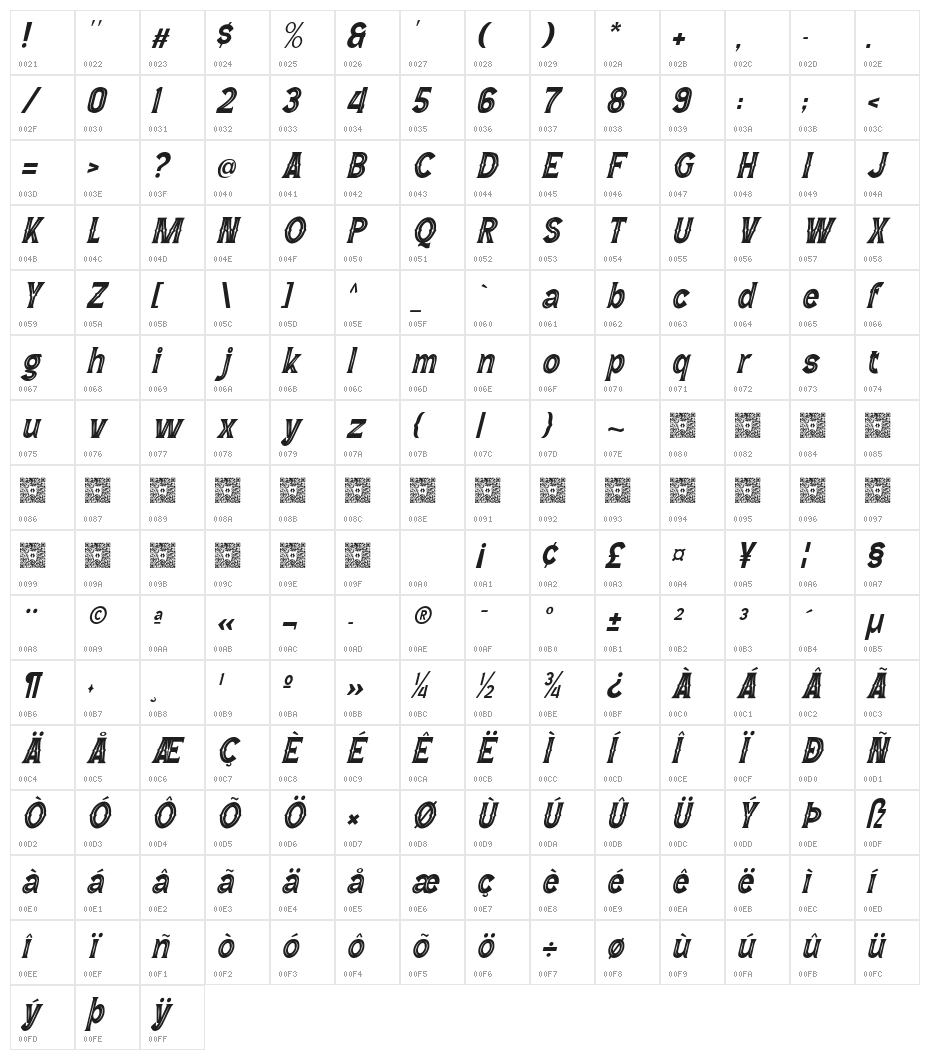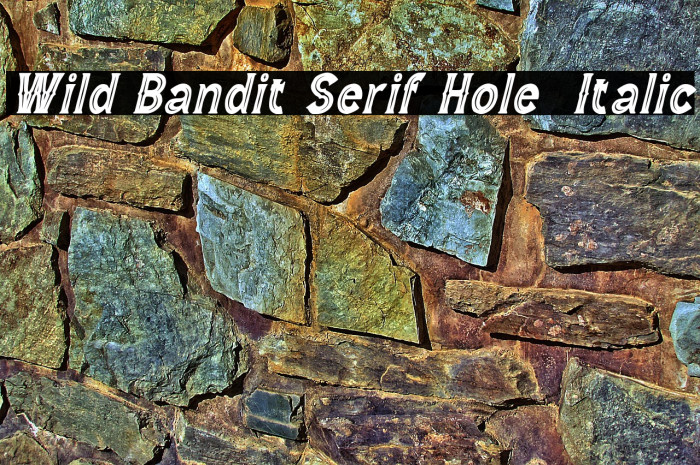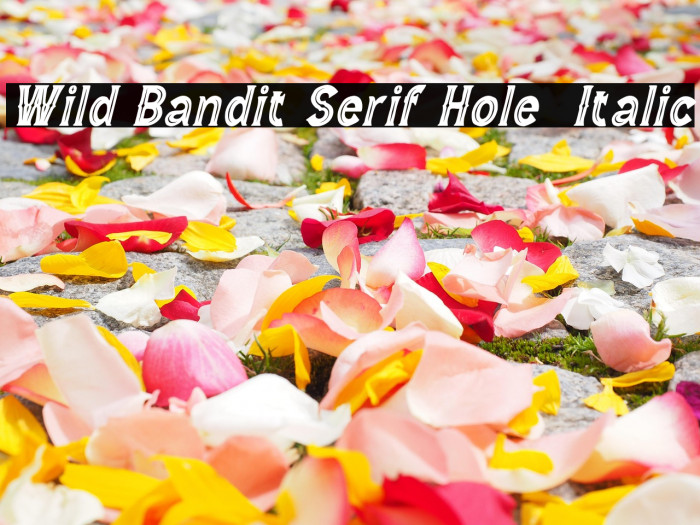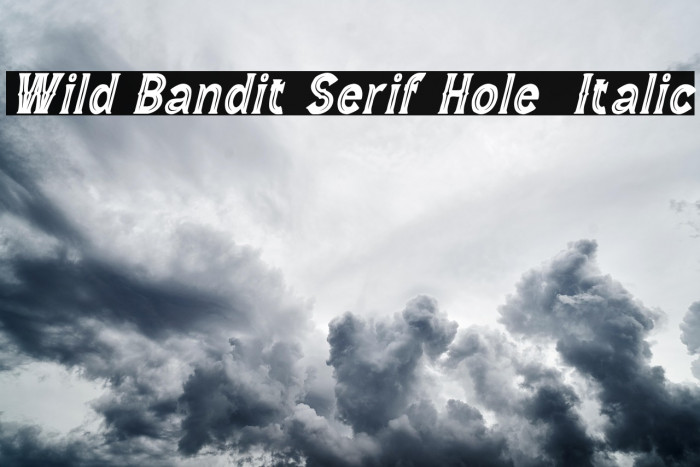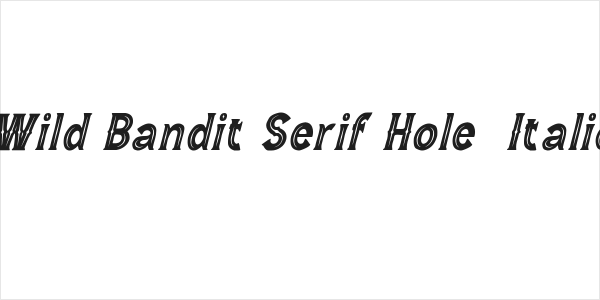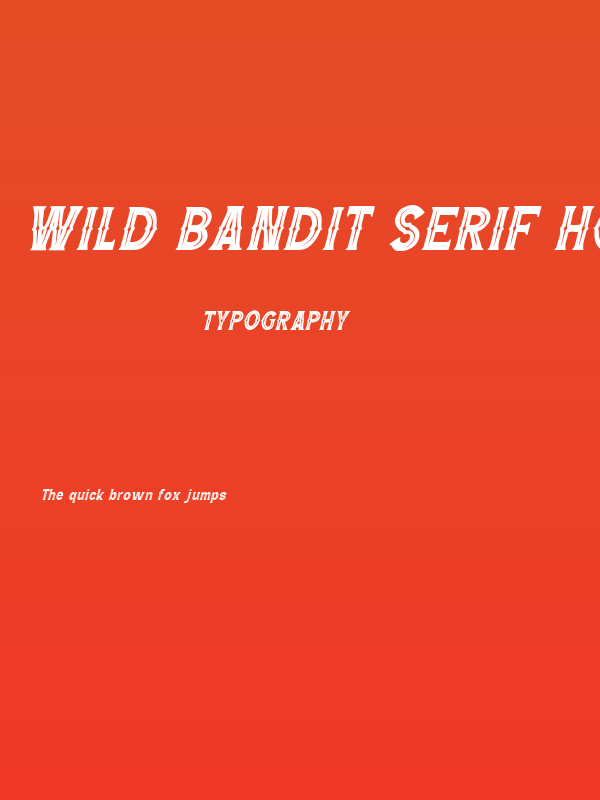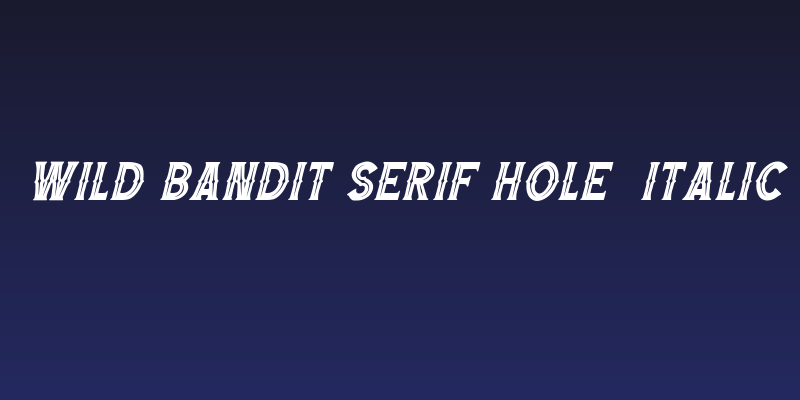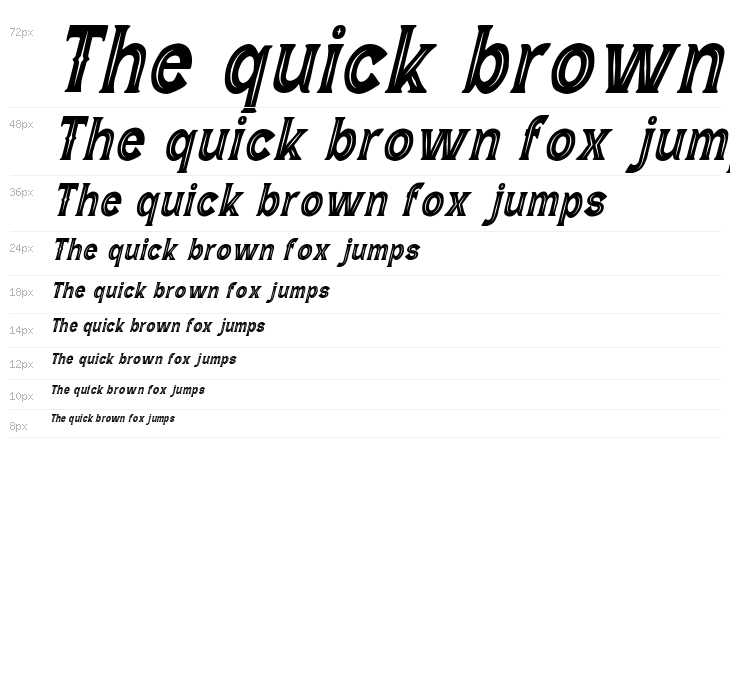
Wild Bandit Serif Hole Italic Font
Wild Bandit Serif Hole Italic Description
This font features a bold and dynamic serif style with a distinct italic slant, giving it a sense of movement and energy. The characters are designed with a unique 'hole' effect, where parts of the strokes are missing, creating a rugged and adventurous look. This design choice adds a layer of complexity and intrigue, making it stand out in any application. The uppercase and lowercase letters maintain a consistent style, with the numbers and special characters following suit. The overall appearance is both bold and playful, making it suitable for creative and eye-catching designs.
| Proposed Projects | Ideal for branding, posters, and creative projects that require a bold and adventurous aesthetic. |